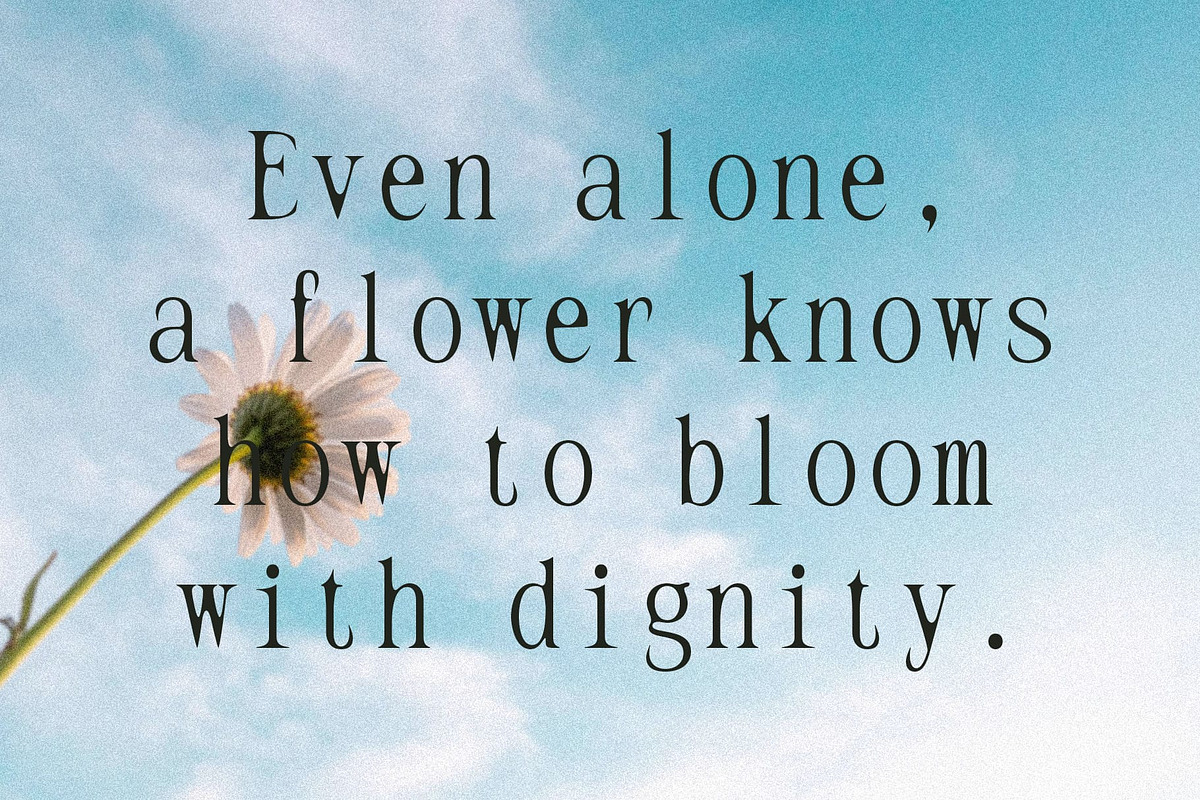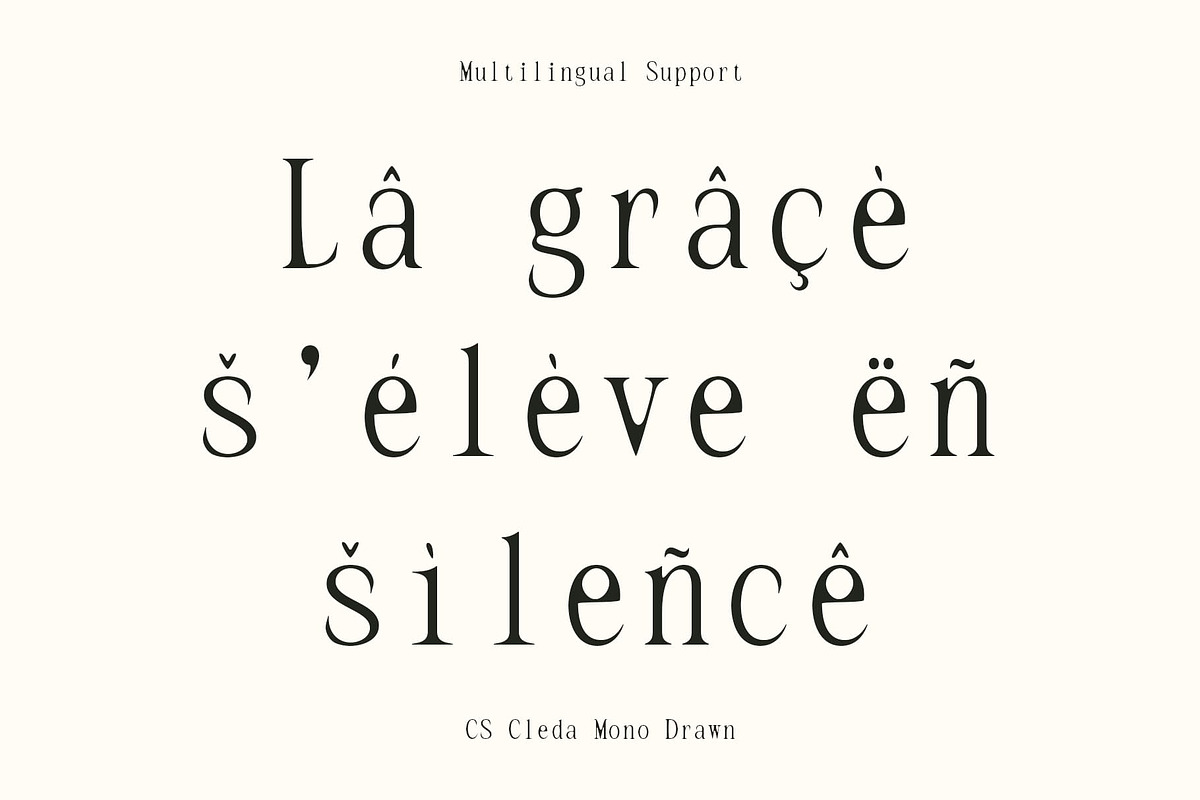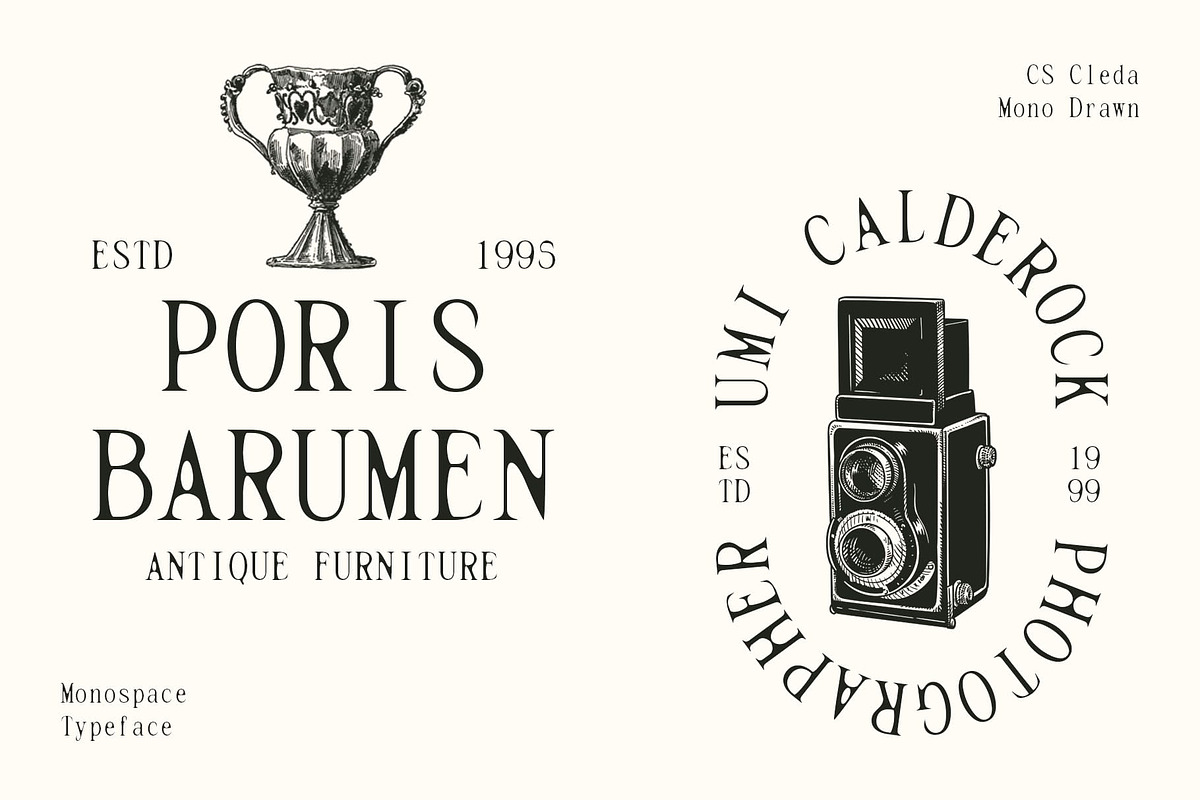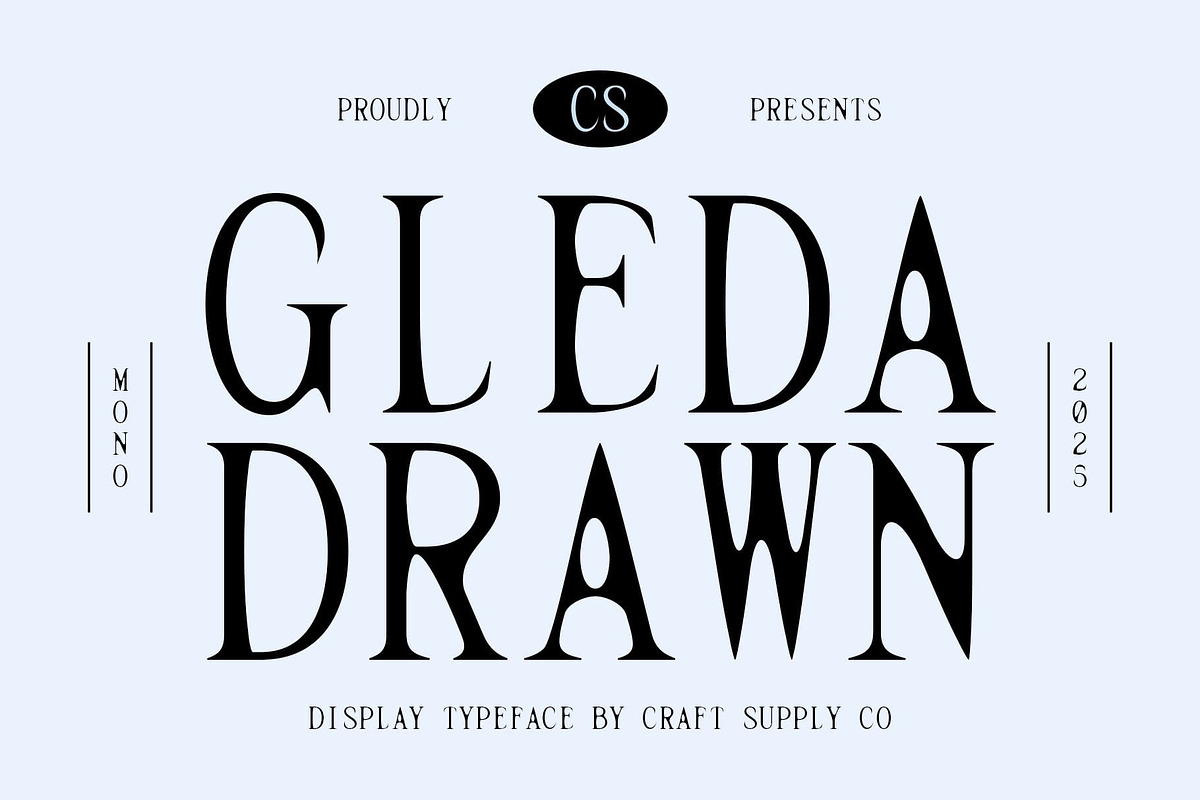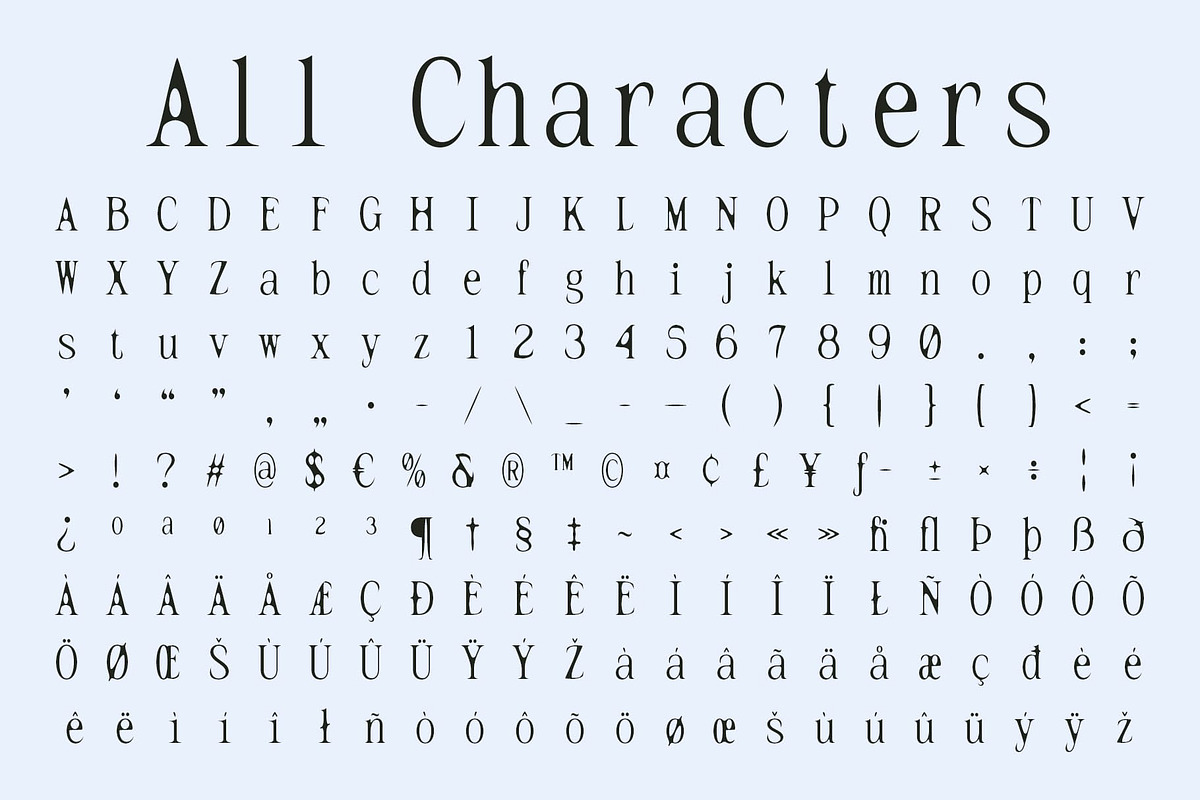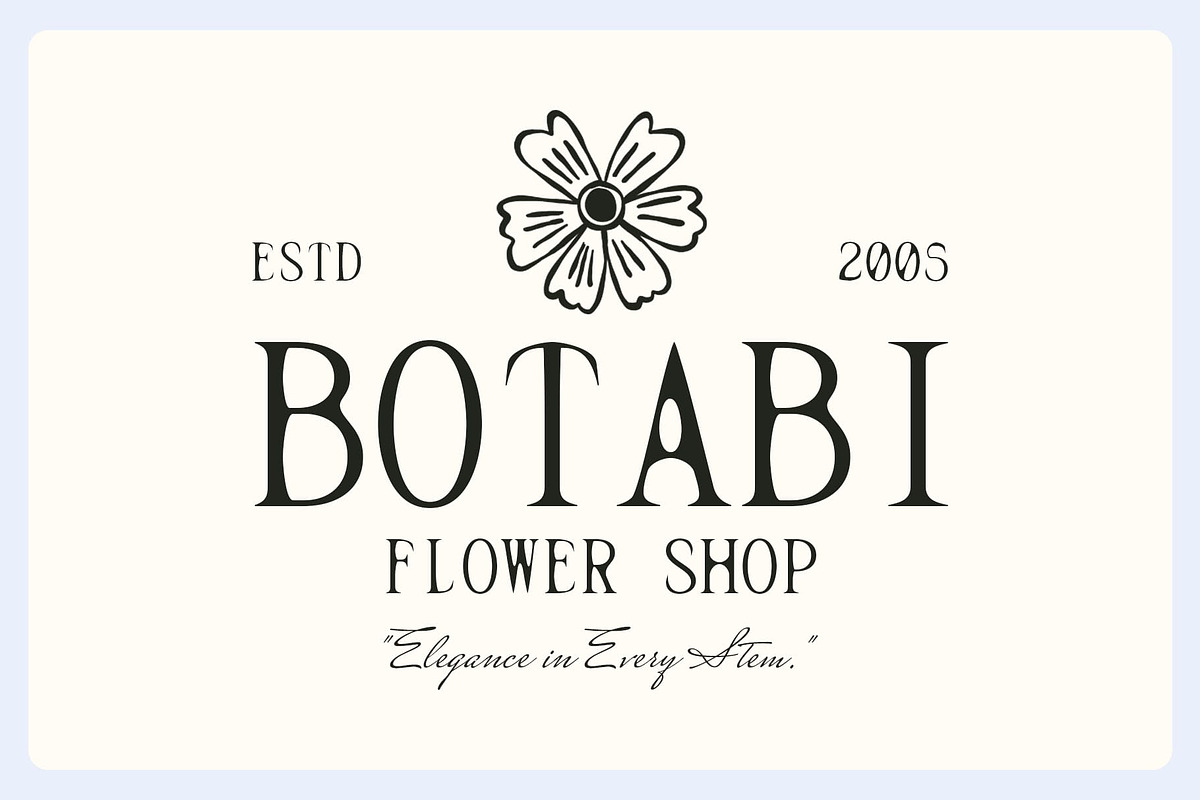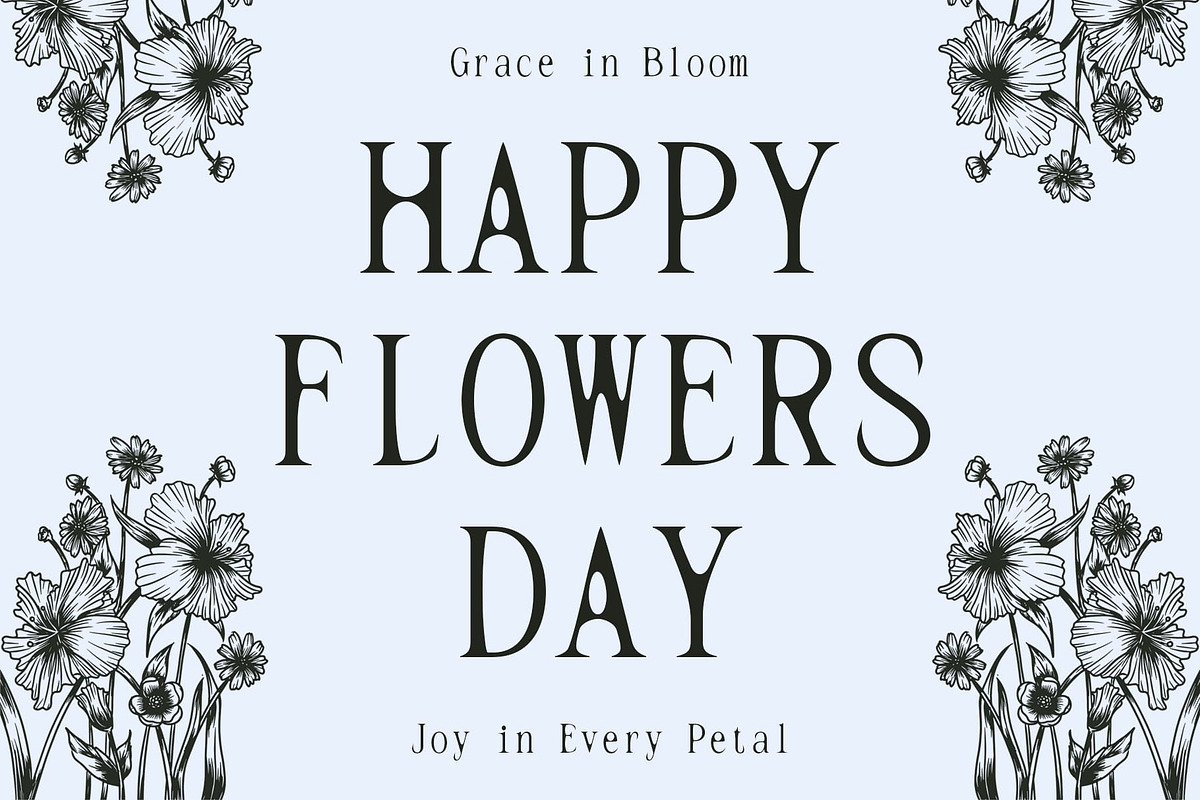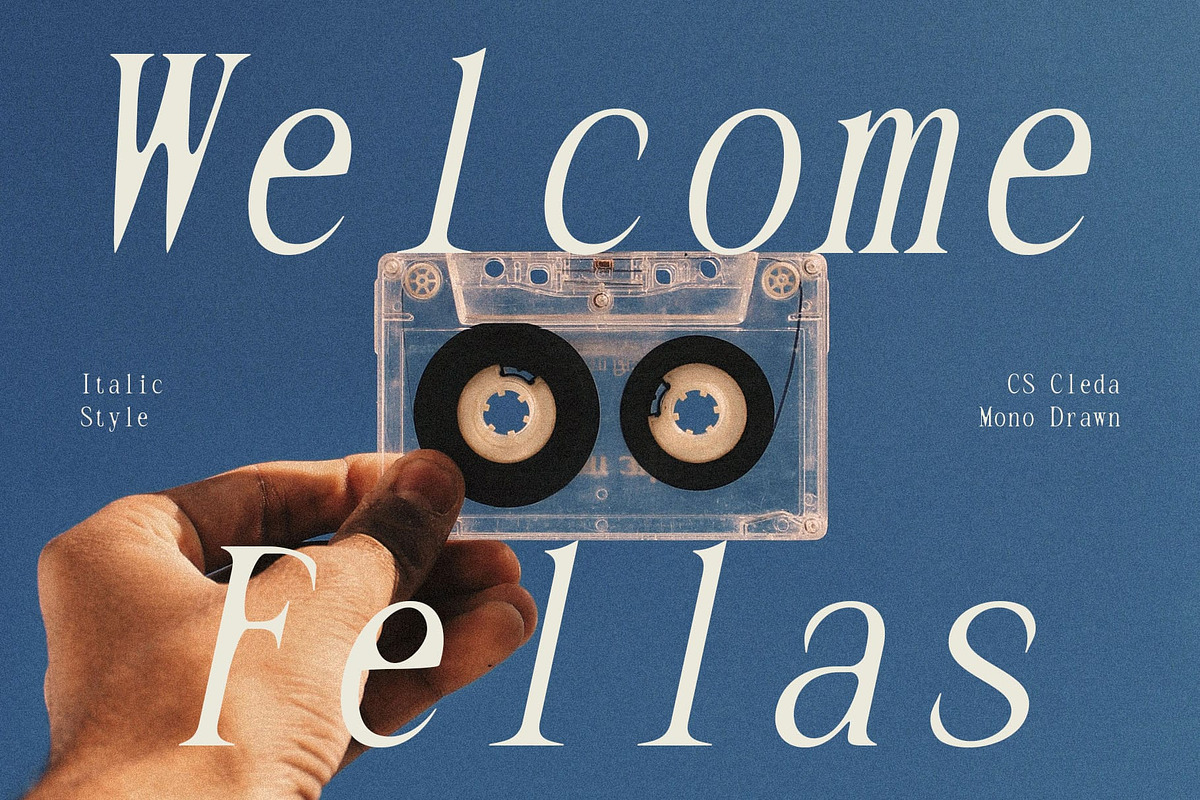
CS Gleda Mono Drawn
CS Gleda Mono Drawn – Monospaced Elegance with a Handcrafted Soul
Classic Elegance Meets Modern Precision This is a modern serif font that brings together a monospaced structure with the charm of a hand-drawn texture. Its clean, evenly spaced letterforms offer technical balance, while the subtle drawn effect adds a touch of individuality and warmth, making it perfect for designers seeking a blend of professionalism and personality.
A Refined Take on Monospaced Typography Unlike typical monospaced fonts, this contemporary serif design exudes refined sophistication and heritage charm. Its design balances structural clarity with decorative finesse, creating a visual rhythm that is ideal for contemporary editorial layouts, tech-forward branding, or any project that calls for a font that’ distinctive yet refined.
Versatile and Character-Driven Whether you’re building a modern identity system, designing stylish digital content, or typesetting long-form articles, this refined and artisanal font adapts beautifully across contexts. It’s a font that communicates trust, sophistication, and originality, wrapped in a clean, monospaced structure that ensures readability and visual consistency.
Designed for Clarity, Built with Character This editorial and timeless font is a modern serif that gives monospaced typography a soulful twist. It’s more than just a functional typeface—it’s a design tool that helps communicate order, clarity, and uniqueness all at once.